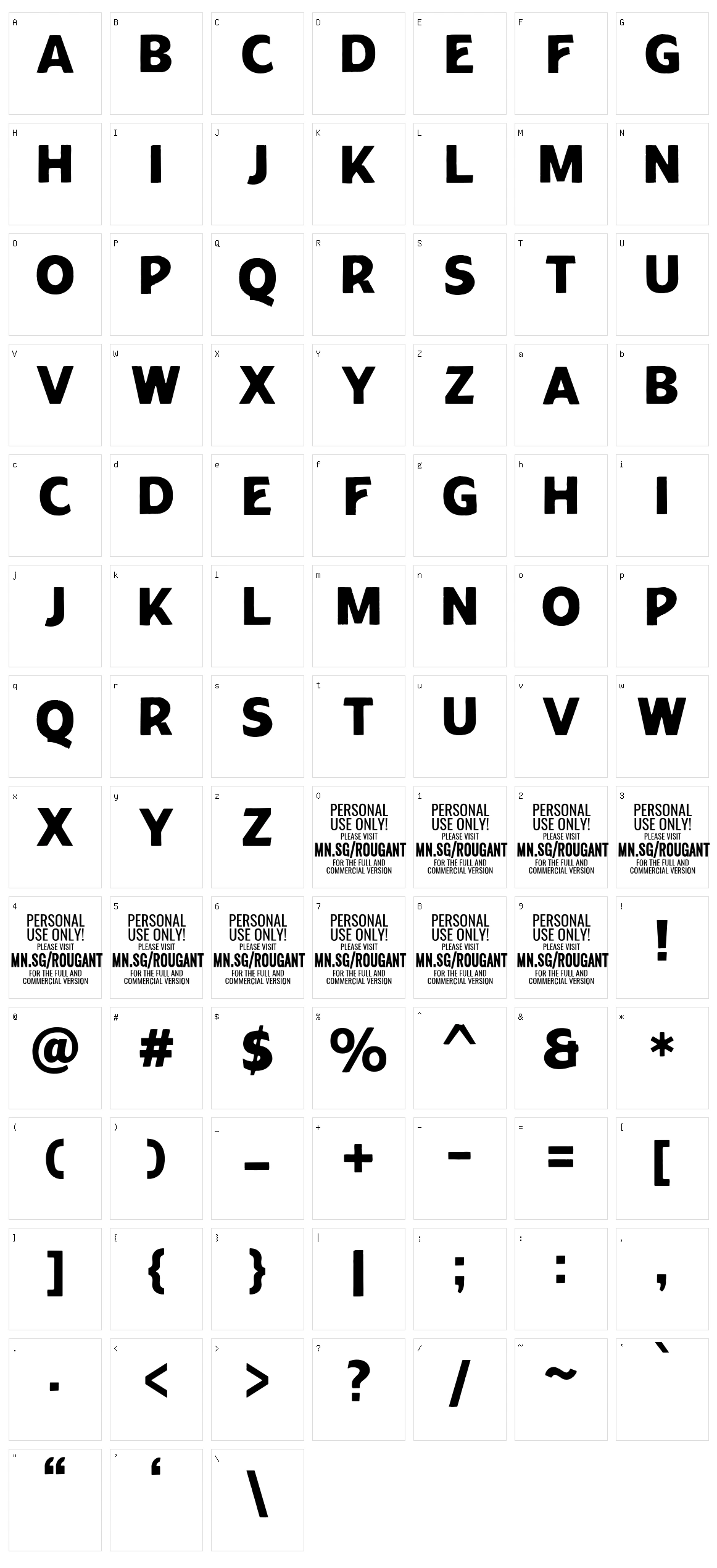
Rougant is a unique sans-serif typeface.
Drawn and created in 2021, this lettering has a distinct vintage style and a strong personality.
Use it for a motorcycle logotype or any graphic with a rock'n'roll vibe.
Provided in three styles: Rougant Regular/Solid, Rougant Rough and Rougant Bold.
Rougant is built with advanced OpenType functionality and has a guaranteed top-notch quality.
It has extensive lingual support, covering all Latin-based languages, from North Europa to South Africa, from America to South-East Asia.
It contains all characters and symbols you'll ever need, including all punctuation and numbers.